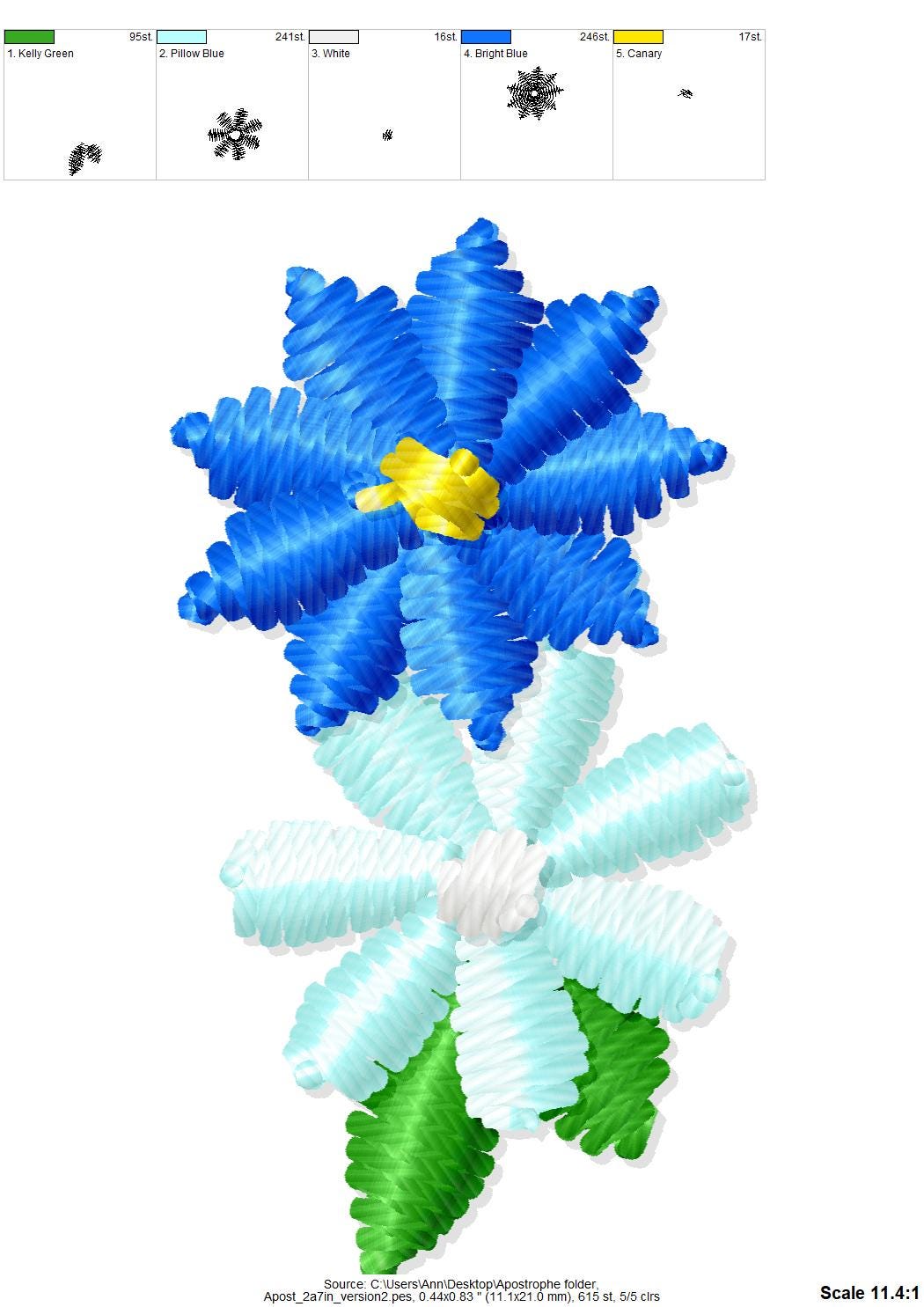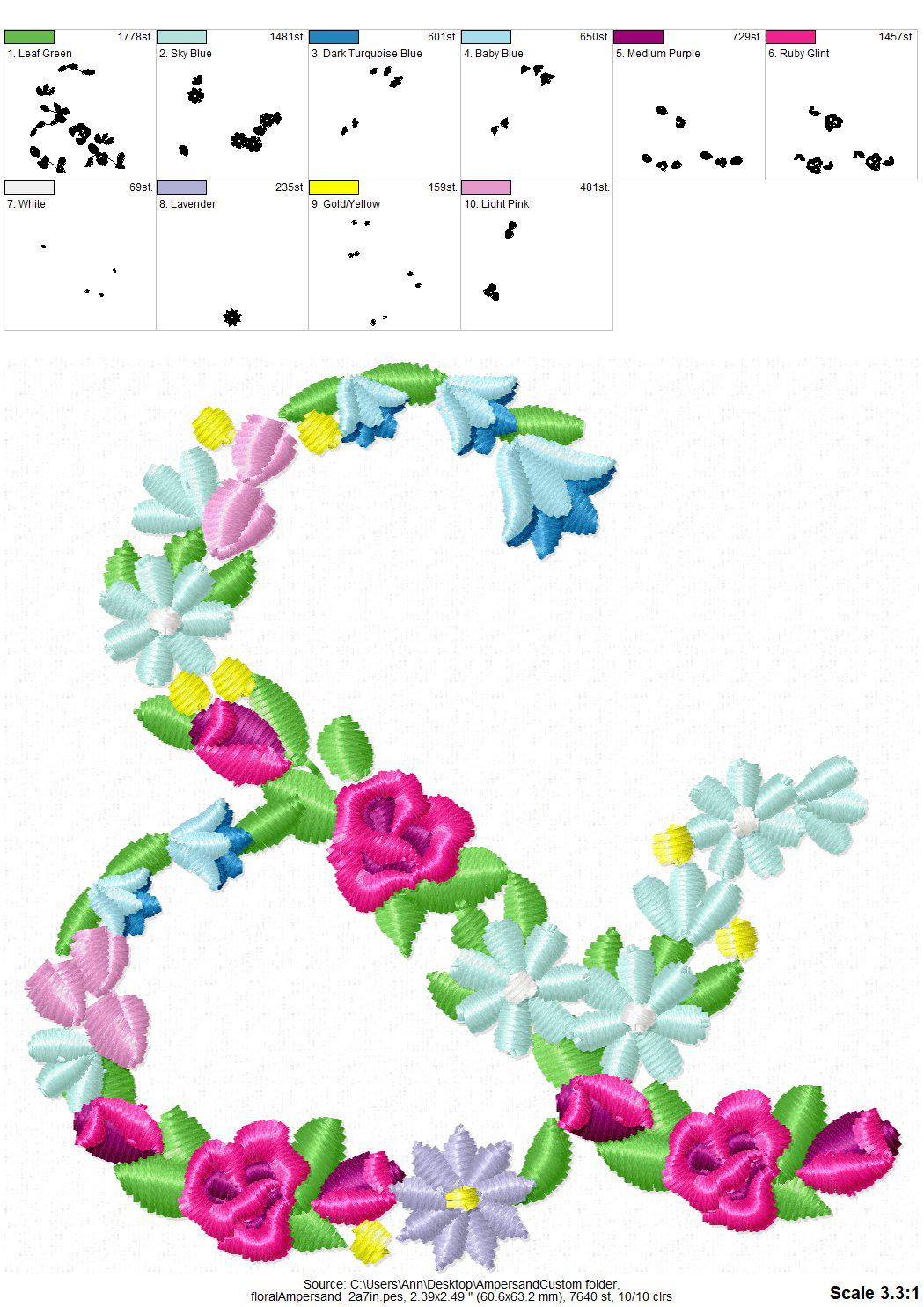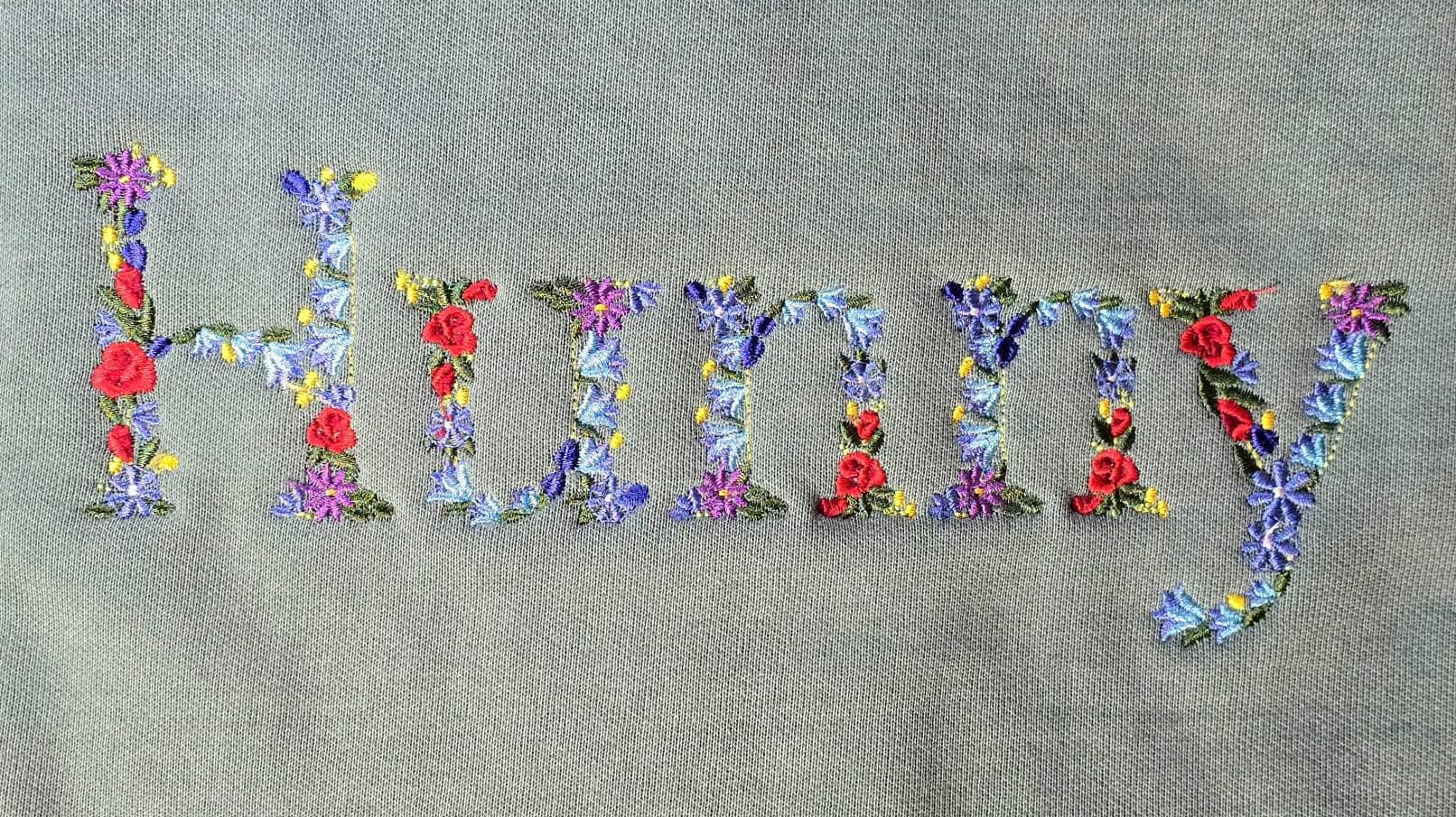
UPDATED! Meadow Bluebell Rose Floral Font Flower alphabet uppercase and lowercase letters initial monogram machine embroidery designs, BX included
Letters Aa - Zz